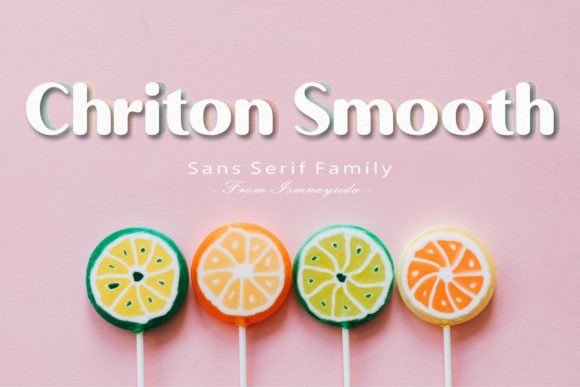
Feast your eyes on Chriton Smooth, the culinary king of fonts, where taste meets typography. This delectable display font was born to tantalize your senses and leave a lasting impression on your audience. Its meticulously crafted curves and smooth edges are reminiscent of a perfectly glazed croissant, evoking a sense of warmth and indulgence. Each character is a culinary masterpiece, a flavor-packed ingredient in your visual recipe.
Unleash the power of Chriton Smooth to transform your food-related designs into mouthwatering experiences. Picture your logo, a delectable morsel of visual artistry, captivating your customers from the first bite. Envision your menu, a symphony of flavors, each dish meticulously paired with a font that dances on their palates. Transport your audience to a culinary paradise with Chriton Smooth, the font that turns your creations into a feast for the eyes.
Chriton Smooth is more than just a font; it's an invitation to embark on a gastronomic journey. Its versatile nature allows you to experiment with different dishes, from classic comfort food to exotic culinary adventures. Whether it's a sizzling steak, a refreshing salad, or a decadent dessert, Chriton Smooth will elevate your designs to Michelin-starred status.
Indulge in the luxuriousness of Chriton Smooth and watch your designs blossom into culinary masterpieces. It's the perfect font for restaurants, cafes, food blogs, and any project that demands a dash of sophistication and a heaping spoonful of flavor. Download Chriton Smooth today and let your taste buds do the talking.